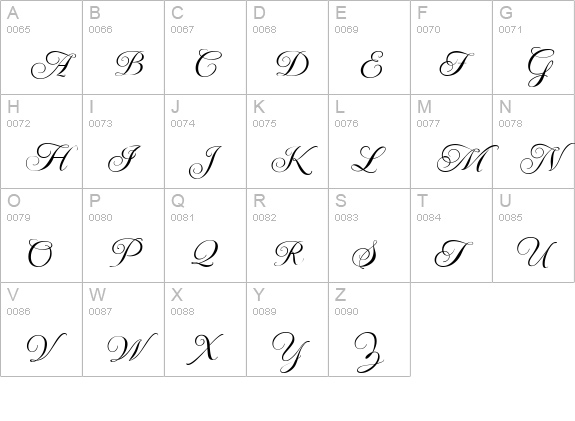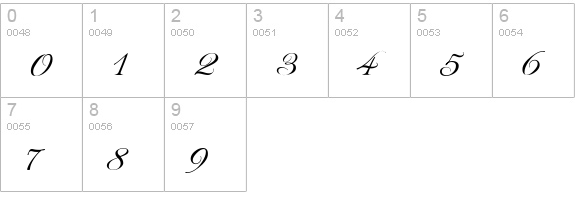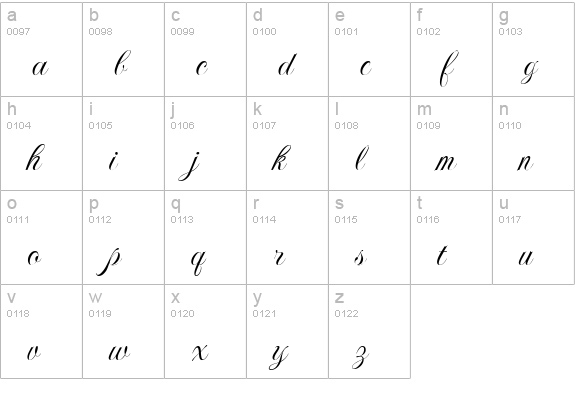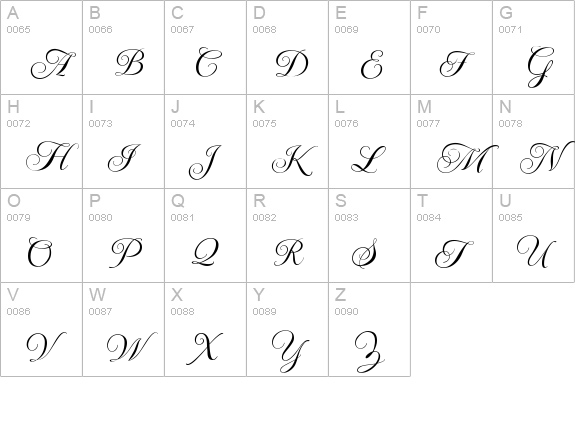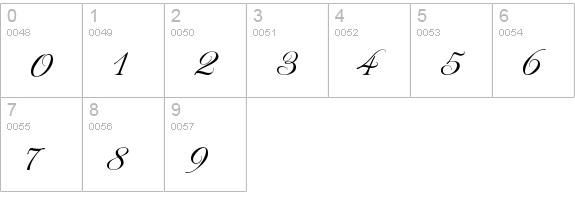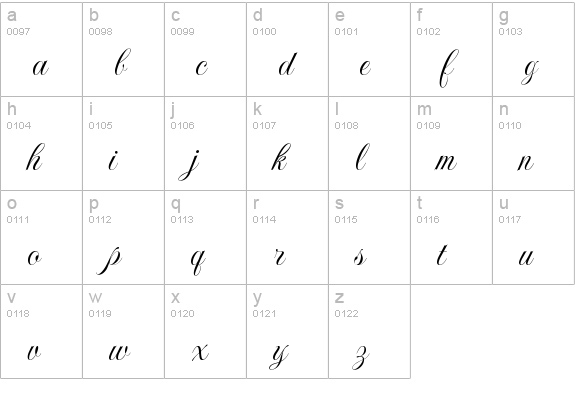
P22 Imperial Script Font Details
P22 Imperial Script font is an exquisite and elegant typeface that effortlessly captures the essence of timeless beauty and sophistication. With its delicate, flowing strokes and graceful curves, this font exudes a sense of regality and grandeur. Designed with meticulous attention to detail, P22 Imperial Script font offers a stunning array of ornate, calligraphic letterforms that are reminiscent of the golden age of penmanship. Each character is meticulously crafted to create a harmonious balance between form and function, resulting in a truly captivating visual experience. This font is perfect for adding a touch of elegance and refinement to any design project. Whether used for invitations, wedding stationery, logos, or branding materials, P22 Imperial Script font adds a touch of class and sophistication that is sure to leave a lasting impression. One of the most remarkable aspects of P22 Imperial Script font is that it is freely available to download at FontsMarket.com. This means that designers and enthusiasts alike can access and utilize this stunning typeface without any restrictions or limitations. Its availability as a free font ensures that creativity knows no bounds, allowing designers to explore and experiment with this beautiful script to their heart's content. So, if you are looking for a font that combines timeless elegance with modern versatility, look no further than P22 Imperial Script font. Download it for free at FontsMarket.com and unlock a world of possibilities for your design projects.